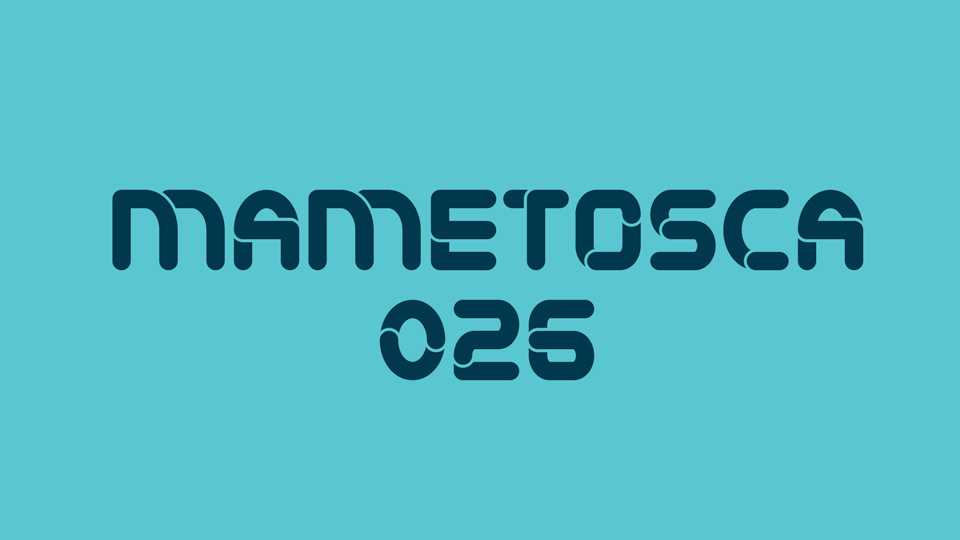
Download Mametosca 026 font an experimental display typeface available only in uppercase. Great for logos, posters, headlines, banners and other typographic projects.
Designer: Diki Mametos Setiadi